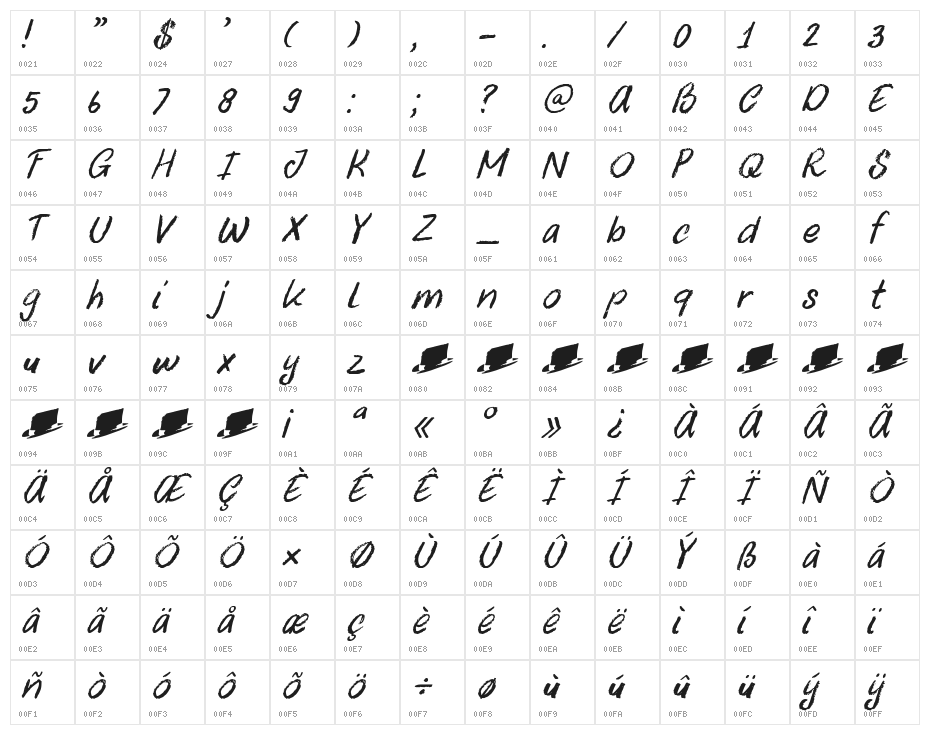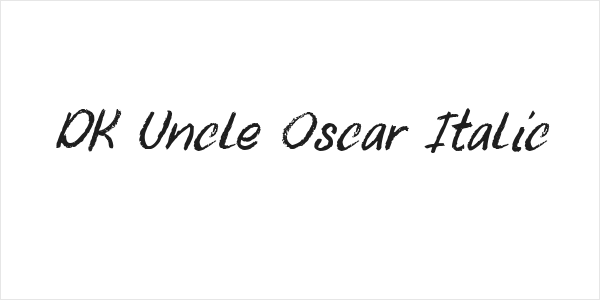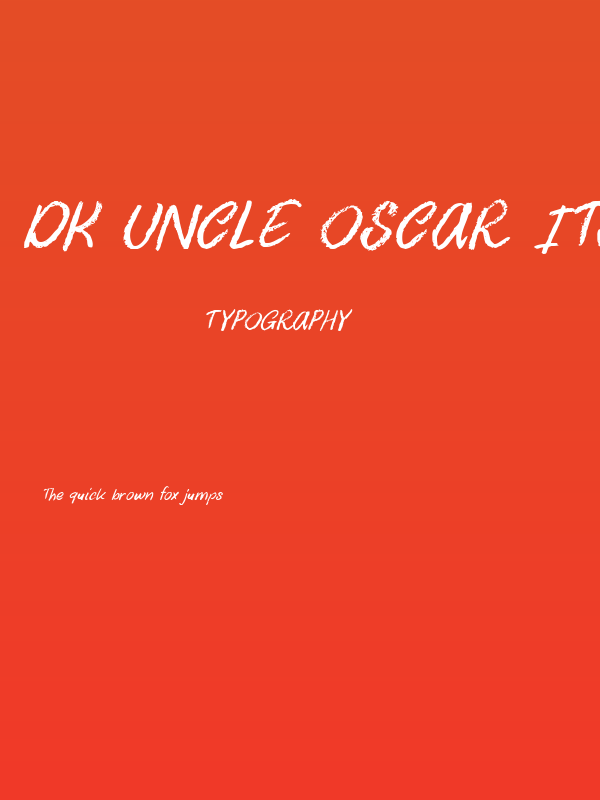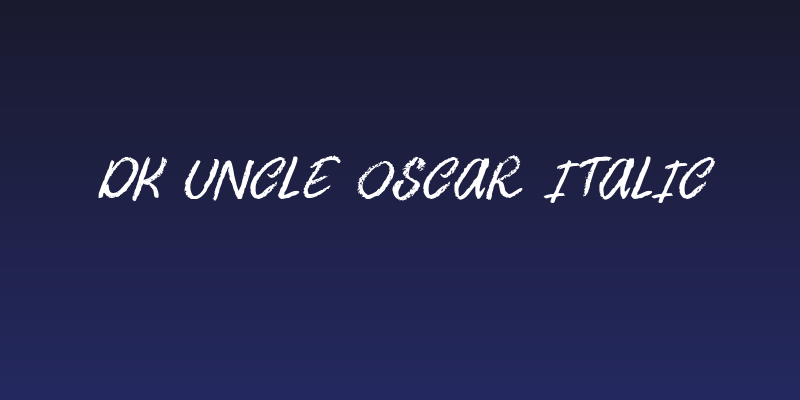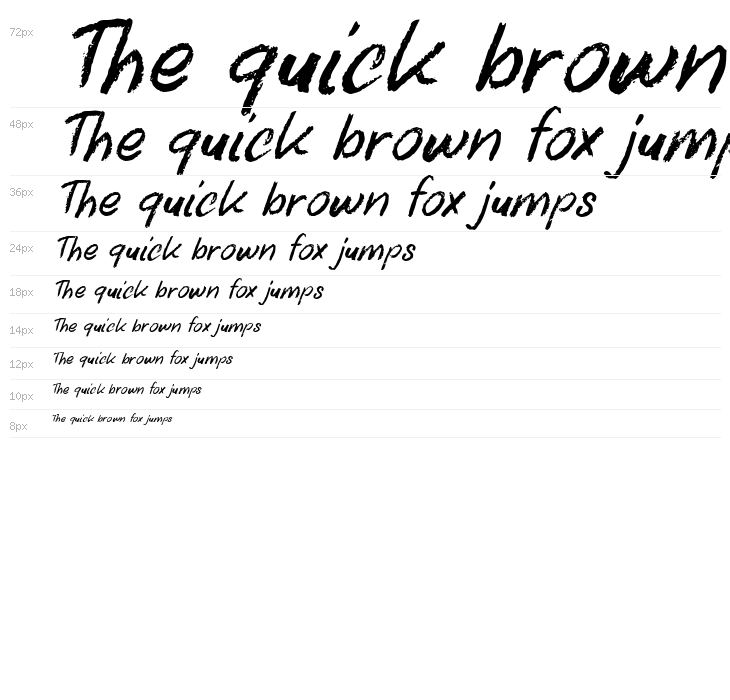
DK Uncle Oscar Italic Font
DK Uncle Oscar Italic Description
This font exhibits a bold and expressive style with a distinct handwritten appearance. The characters are slightly slanted, contributing to its dynamic and informal look. The strokes are uneven, with a textured, brush-like quality that adds a sense of movement and energy. This font's unique character is further emphasized by its irregular edges and varying stroke thickness, creating a lively and artistic feel. The uppercase and lowercase letters maintain a consistent style, while the numerals and special characters complement the overall design with their bold and playful execution.
| Use Case | Logos, Headlines, Artistic designs |
| Proposed Projects | Ideal for creative projects such as posters, invitations, branding, and artistic designs that require a personal touch. |